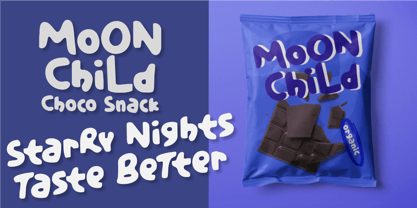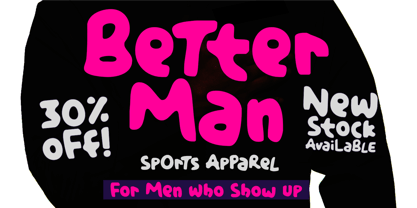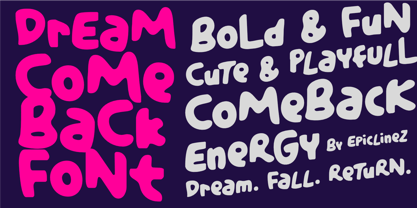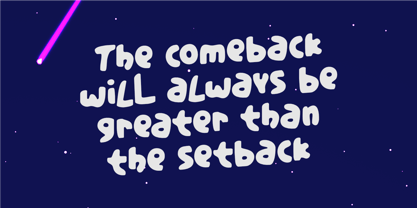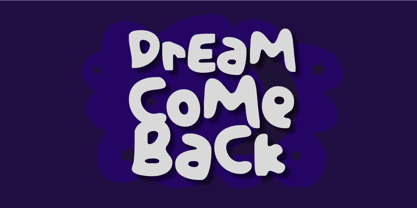
Dream Comeback
por Epiclinez
La familia tipográfica Dream Comeback fue diseñada por Aldy Sidik y publicada por Epiclinez. Dream Comeback contiene 1 estilos. Más información sobre esta familia
Dream Comeback is a bold, fun, and playful display font inspired by second chances, soft dreams, and happy returns. With chunky shapes, friendly curves, and energetic personality, this font feels optimistic, cute, and full of bounce — perfect for designs that celebrate trying again. It’s ideal for kids projects, playful branding, posters, movie titles, stickers, packaging, games, and cheerful quotes. Dream Comeback shines best at large sizes, bringing a joyful comeback energy to any creative work that needs warmth, fun, and confidence. Whether your design is about dreaming big, falling down, or popping back up with a smile — Dream Comeback makes every message feel brighter and braver.
Diseñadores: Aldy Sidik
Fundición: Epiclinez